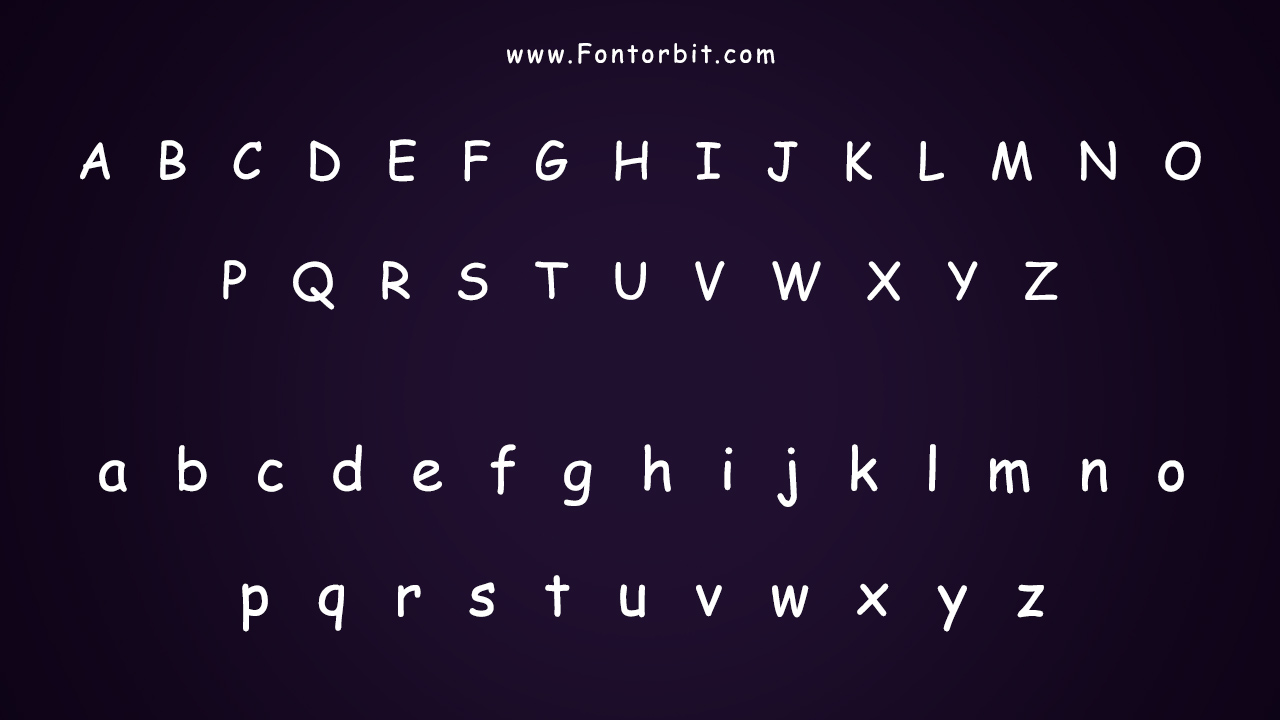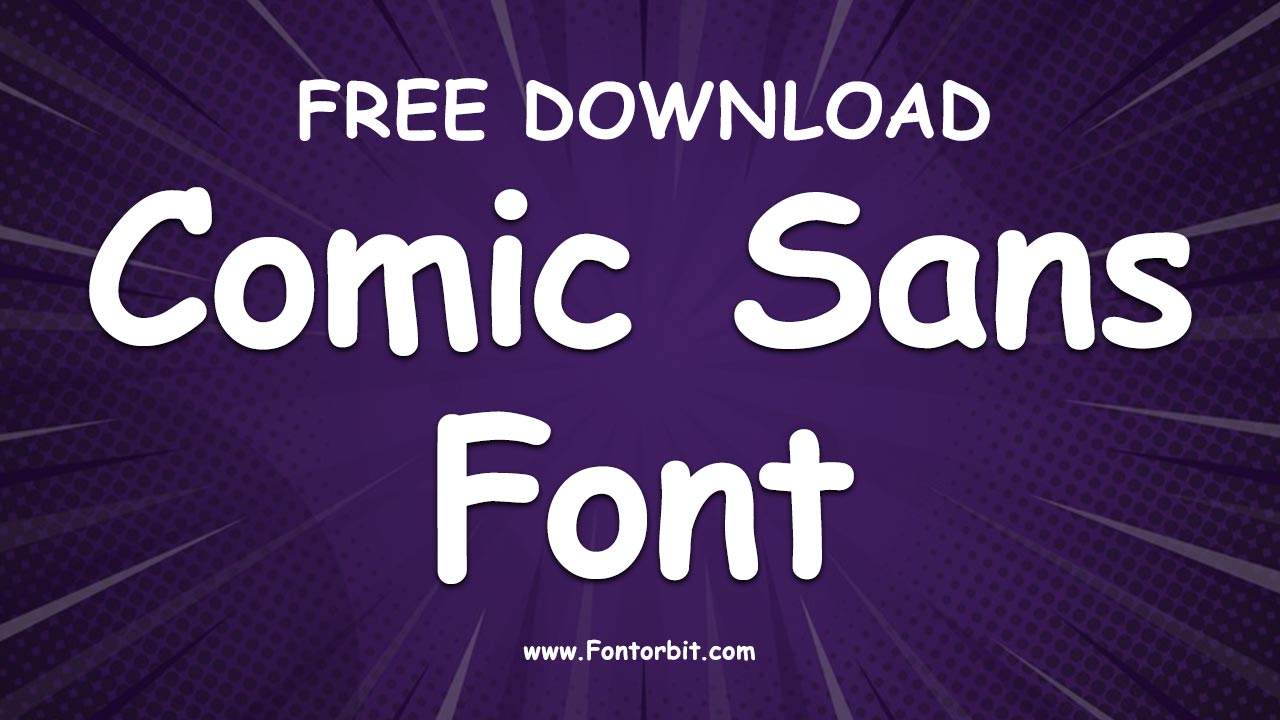
Comic Sans is a distinctive casual script font that has made a notable impact in the world of typography. Vincent Connare designed Comic Sans in 1994, and it quickly became renowned for its informal and playful style.
Connare, an experienced type designer, aimed to create a typeface that mirrored the handwritten lettering in comic books. Connare aimed to create a more approachable and less formal alternative to the standard typefaces available at the time.
Comic Sans Family Includes
Comic Sans is part of a broader family of typefaces that emulate comic book text and informal handwriting. Here is the font family list:
- Comic Sans Pro Regular
- Comic Sans Pro Italic
- Comic Sans Pro Bold
- Comic Sans Pro Bold Italic
Notable Uses Of Comic Sans
People often use Comic Sans in informal settings to achieve a playful or friendly tone. You’ll commonly see it in:
- School projects
- Children’s materials
- Casual correspondence
Use Comic Sans when you want to create a light-hearted or humorous effect. Ideal applications include:
- Educational materials
- Invitations and greeting cards
- Informal presentations
Comic Sans has been a topic of much debate, often criticized for its overuse in professional settings. Despite this, it remains a popular choice for informal and friendly communication. Understanding when and where to use Comic Sans can help leverage its unique style.
1.Is Comic Sans Suitable For Professional Documents?
Typically, people do not recommend using Comic Sans for formal or professional documents.
2.Can Comic Sans Be Used For Educational Purposes?
Yes, Comic Sans is commonly used in educational materials.
4.Can Comic Sans Be Used In Logos?
Although it’s uncommon, you can use Comic Sans in logos to convey a playful or approachable image.
5.What Are The Criticisms Of Comic Sans?
Critics often criticize Comic Sans for its overuse and deem it unprofessional in formal settings.